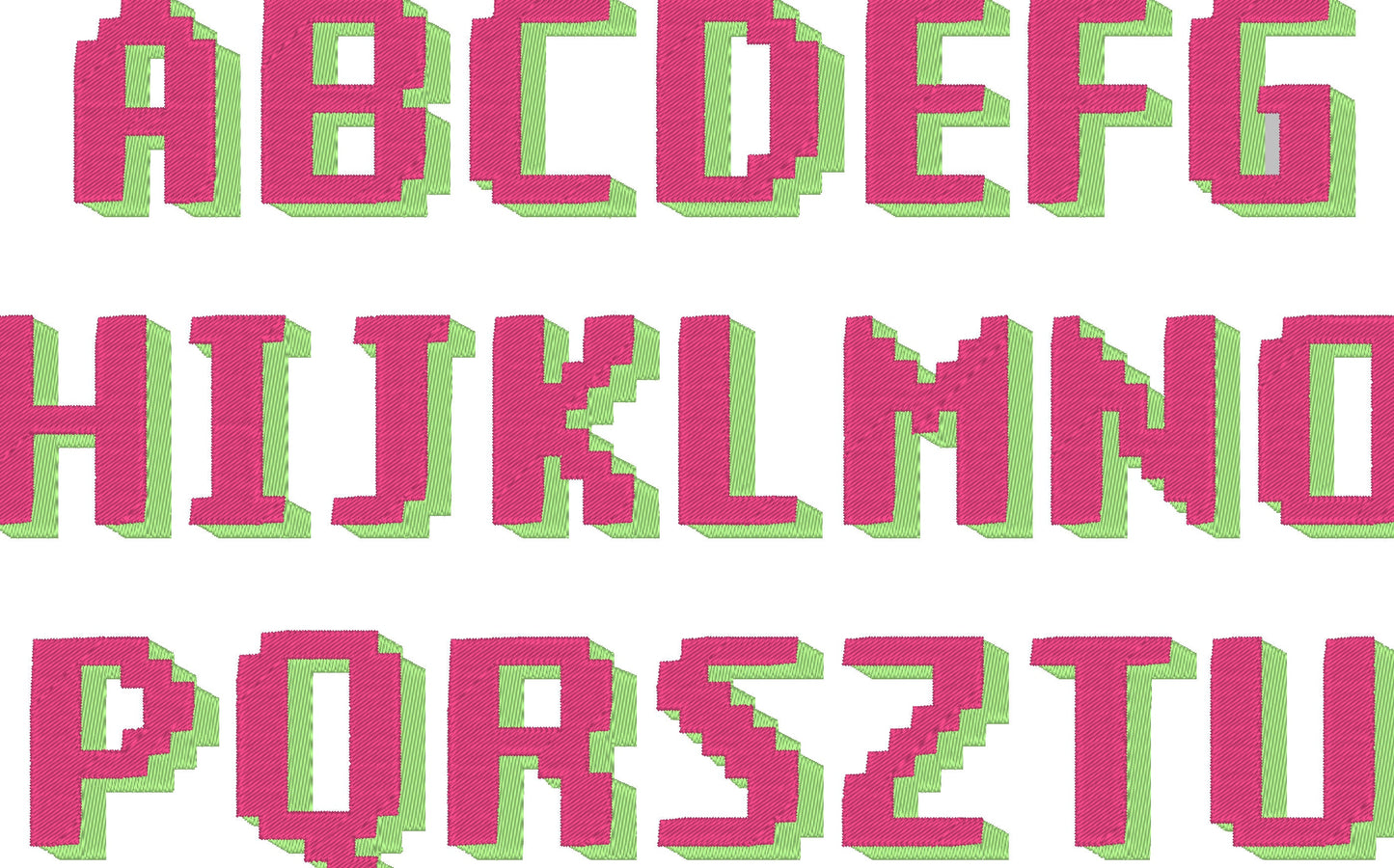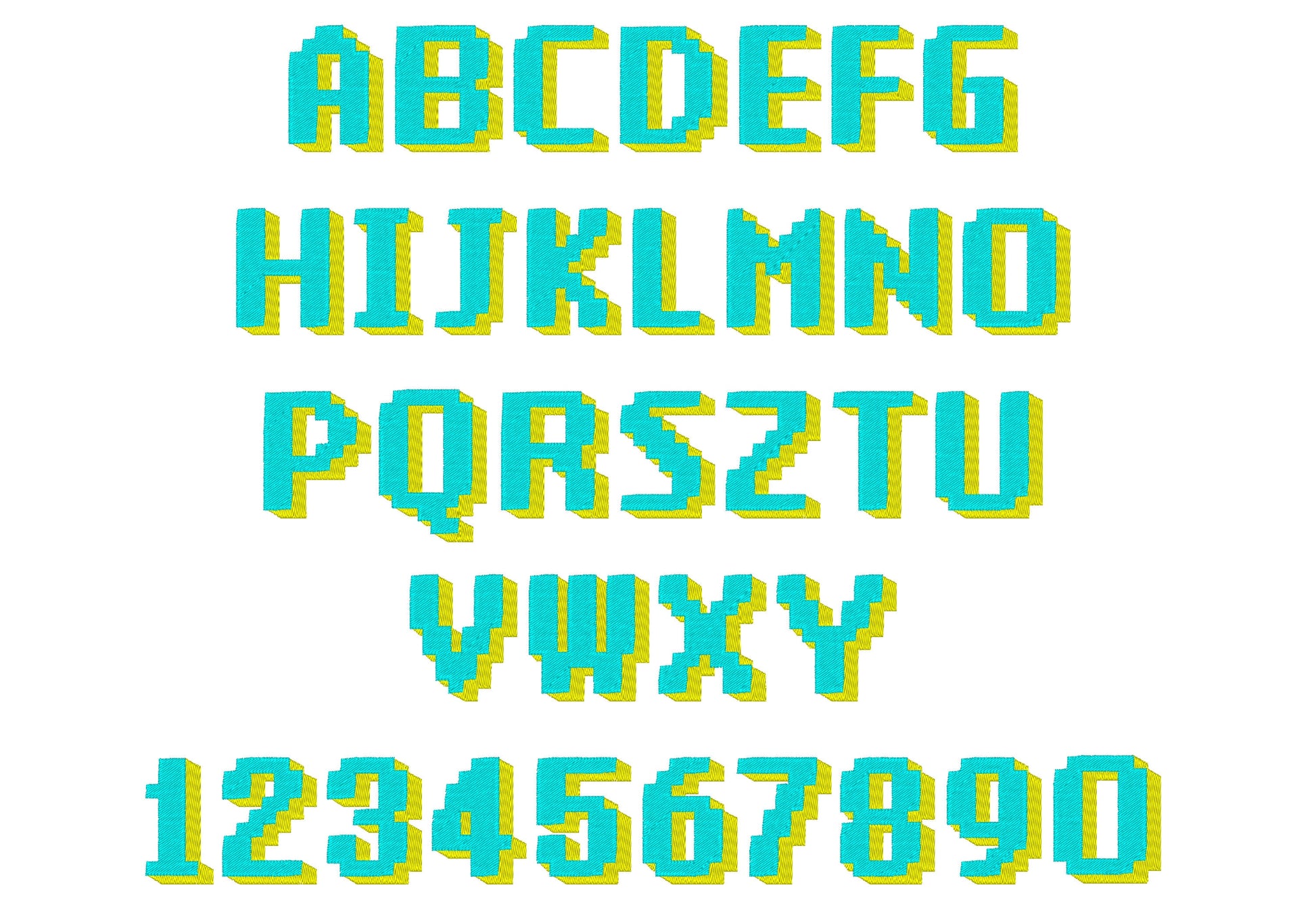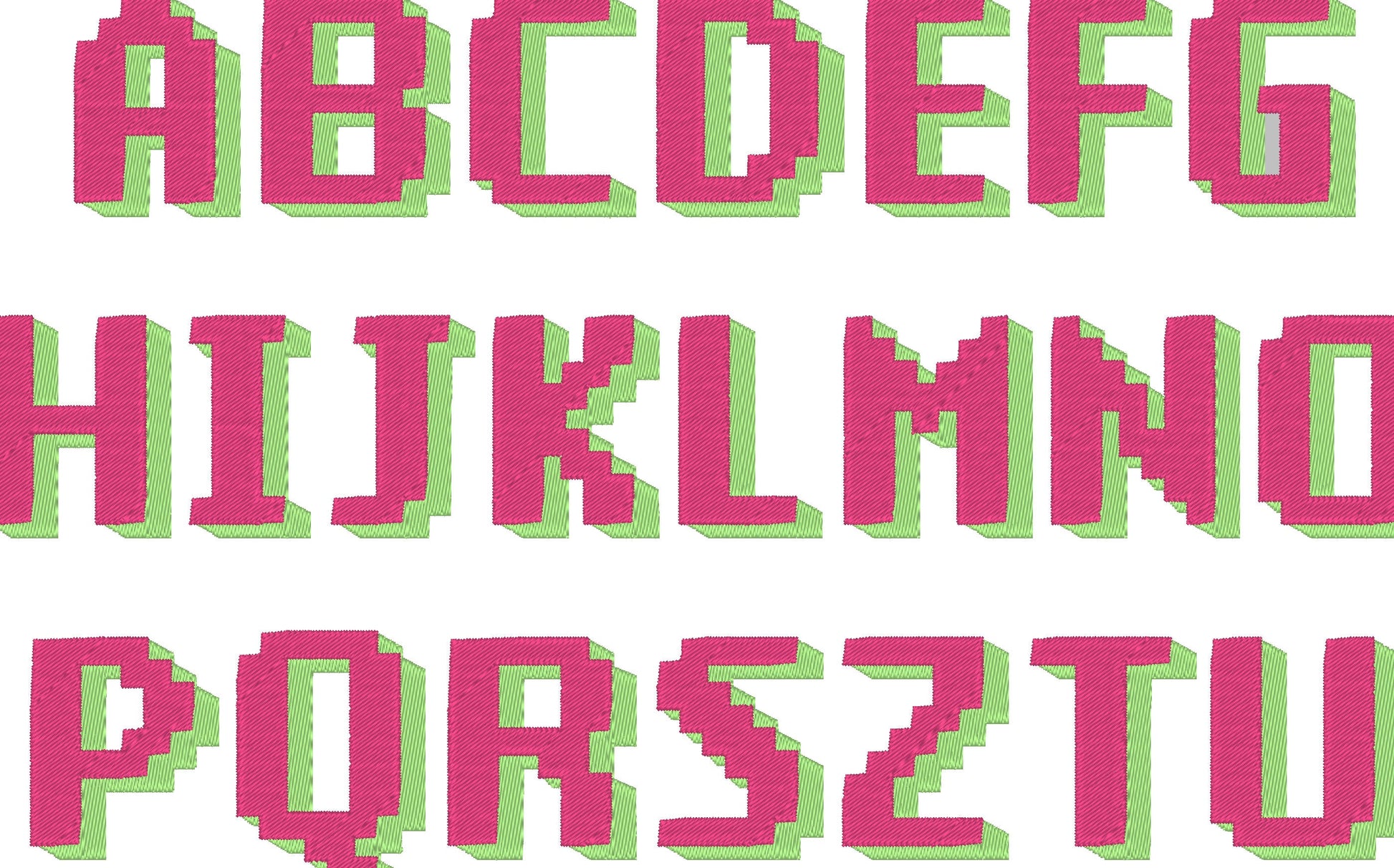
Or click to open the linkA pixel brick font with a shadow, in fill stitch. Fun for gamer boys' shirts, names, pillows and party gear.
Uppercase letters A to Z and numbers 0 to 9, in six sizes: 1.2, 1.6, 1.8, 2.2, 2.6 and 3 inches. Full fill stitch.